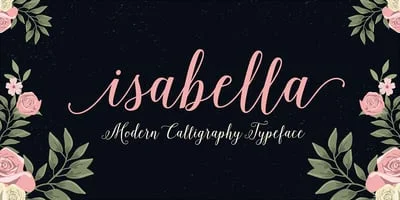
Isabella Script
Isabella Script Font
Isabella Script Font is perfect for elegant wedding invitations, luxury fashion branding, sophisticated personal stationery, fine art gallery signage, upscale boutique logos, and romantic event design materials.
Isabella Script Font is exciting because it embodies timeless feminine elegance and aristocratic grace, delivering an exquisitely refined script typeface that captures the essence of classical beauty and sophisticated romance.
The Isabella Script Font family includes graceful variations: Isabella Script Regular, Isabella Script Bold, ornamental swashes, contextual ligatures, and decorative flourishes that enhance the font's elegant calligraphic character.
Experience aristocratic elegance with Isabella Script Font, an exquisitely refined typeface that brings timeless sophistication and feminine grace to your most prestigious design projects. This distinguished font excels in creating memorable branding for luxury spas, exclusive fashion houses, fine jewelry boutiques, and high-end event planners who cater to clients with impeccable taste and refined sensibilities. The masterfully crafted letterforms feature flowing calligraphic strokes and classical proportions that echo the elegant penmanship of European nobility while ensuring flawless legibility across all luxury applications. Perfect for premium cosmetics packaging, sophisticated wine labels, exclusive club memberships, and diplomatic correspondence that demands the highest level of typographic refinement, this font connects with discerning audiences who appreciate authentic elegance and cultural sophistication. Each character flows with regal grace, making every communication feel like a handwritten note from a distinguished aristocrat. Isabella Script Font transforms elegant communications into timeless masterpieces that honor classical beauty while establishing unquestionable authority in the most sophisticated social and business circles.